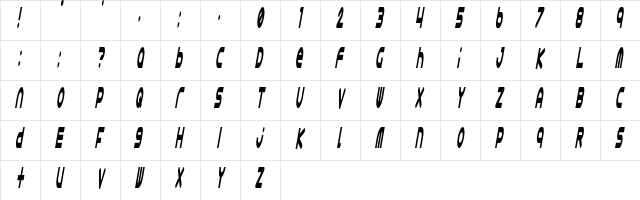
Astro 868 Regular
Design Context for Astro 868 Typeface
Astro 868 offers clean, dependable letterforms without strong stylistic allegiance, making it a practical choice for designers who need flexibility.